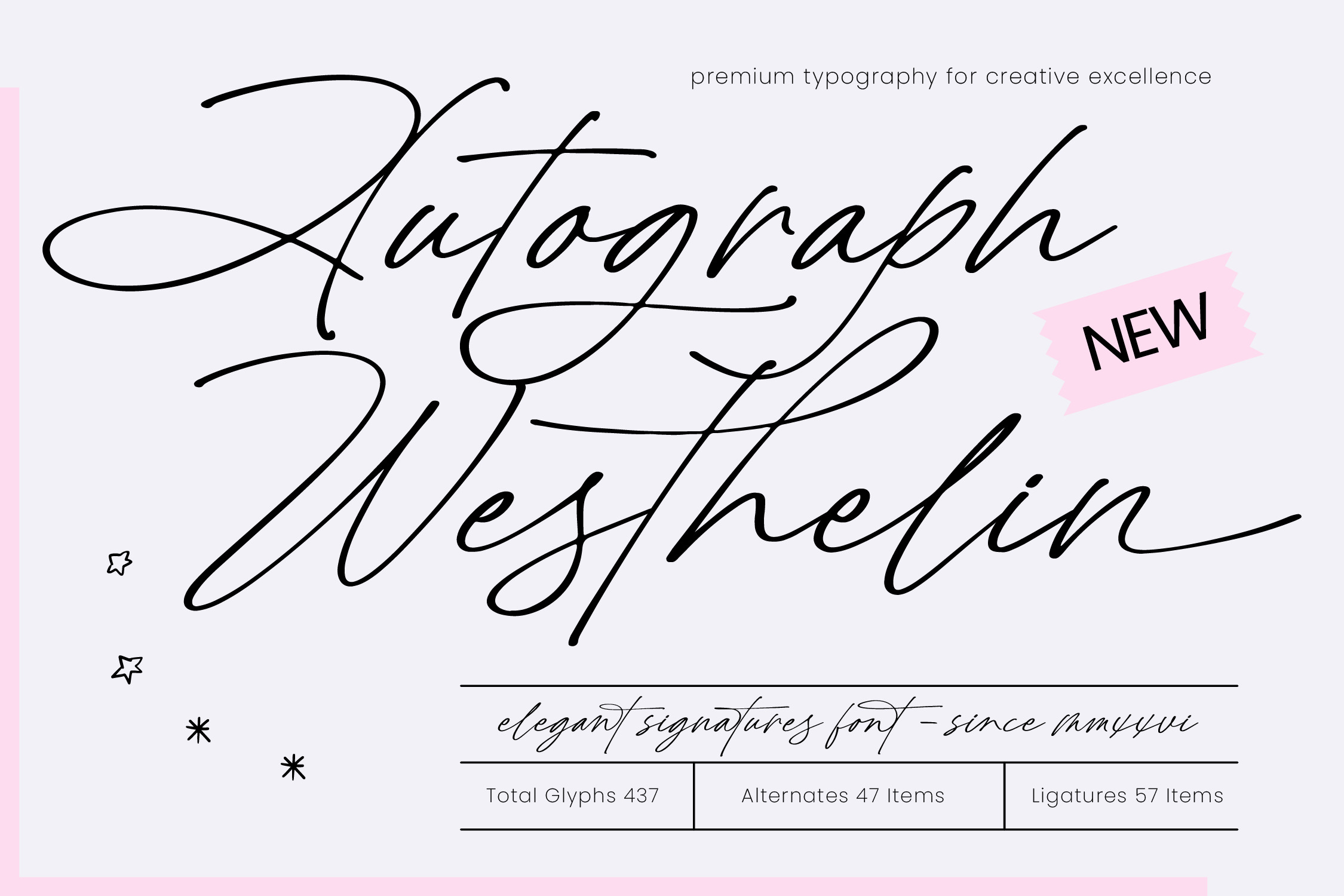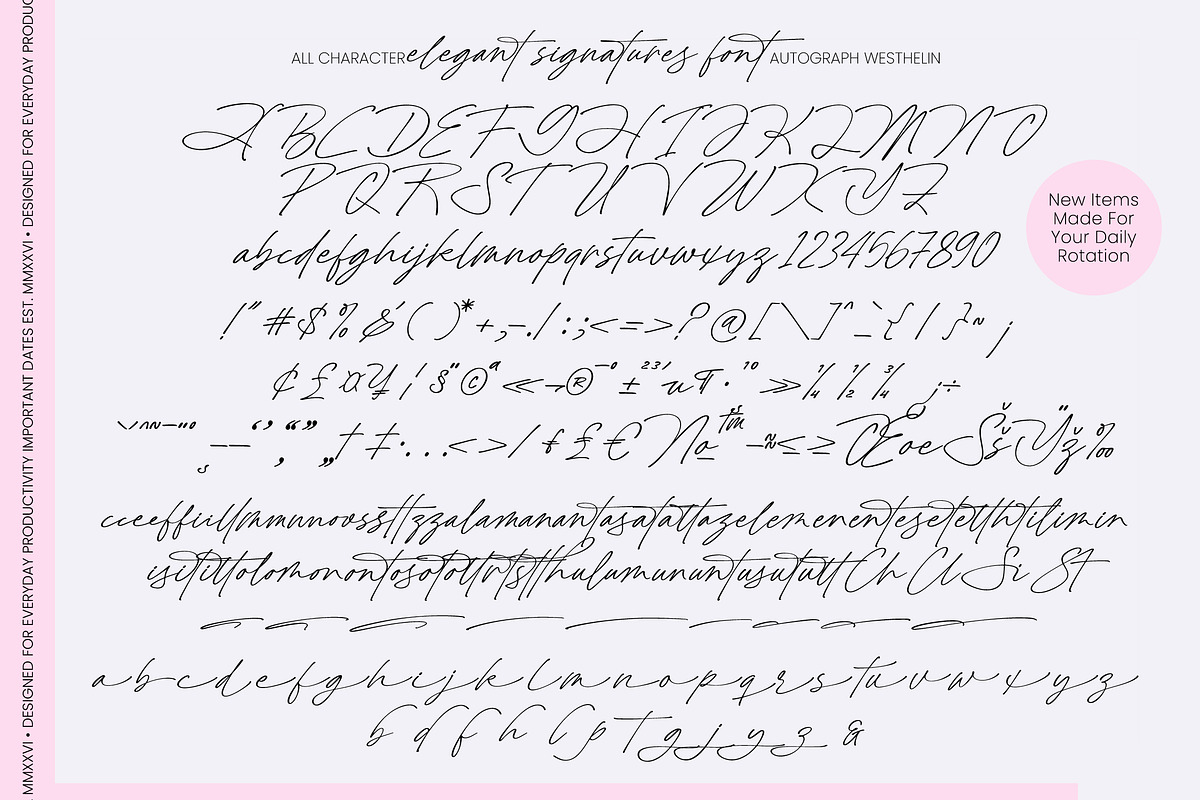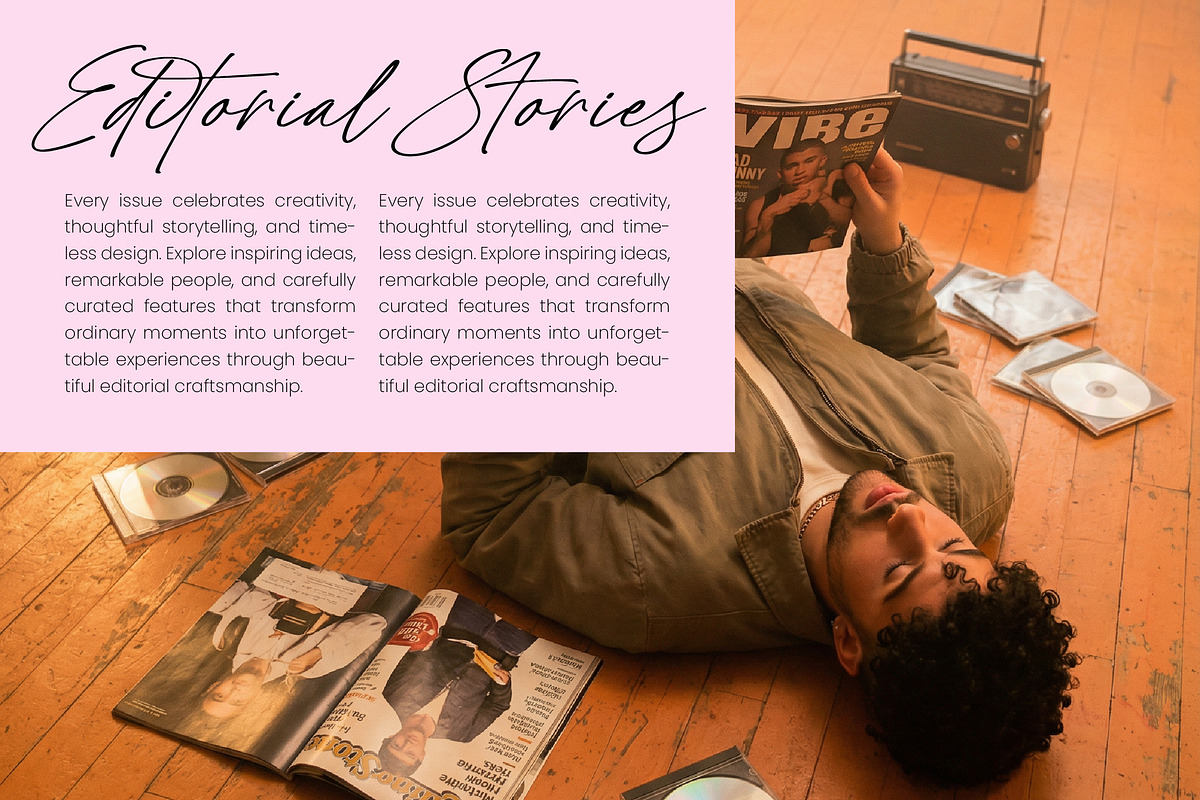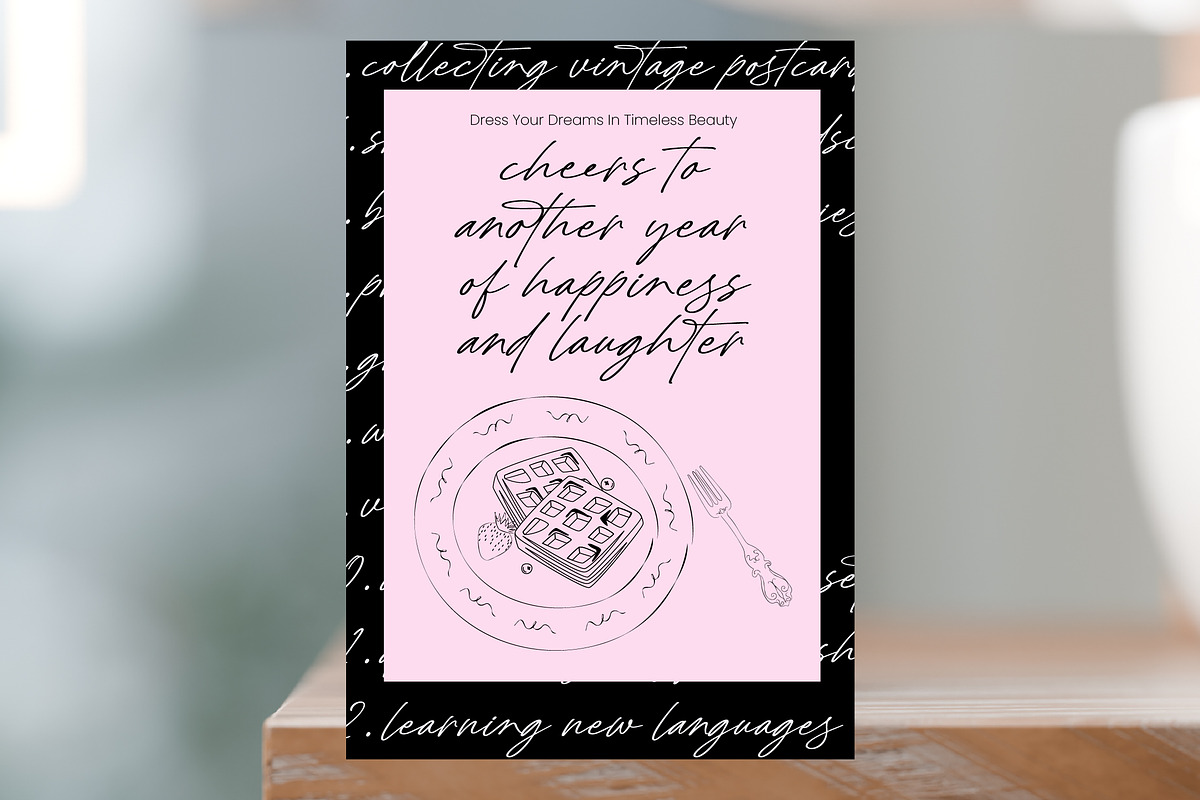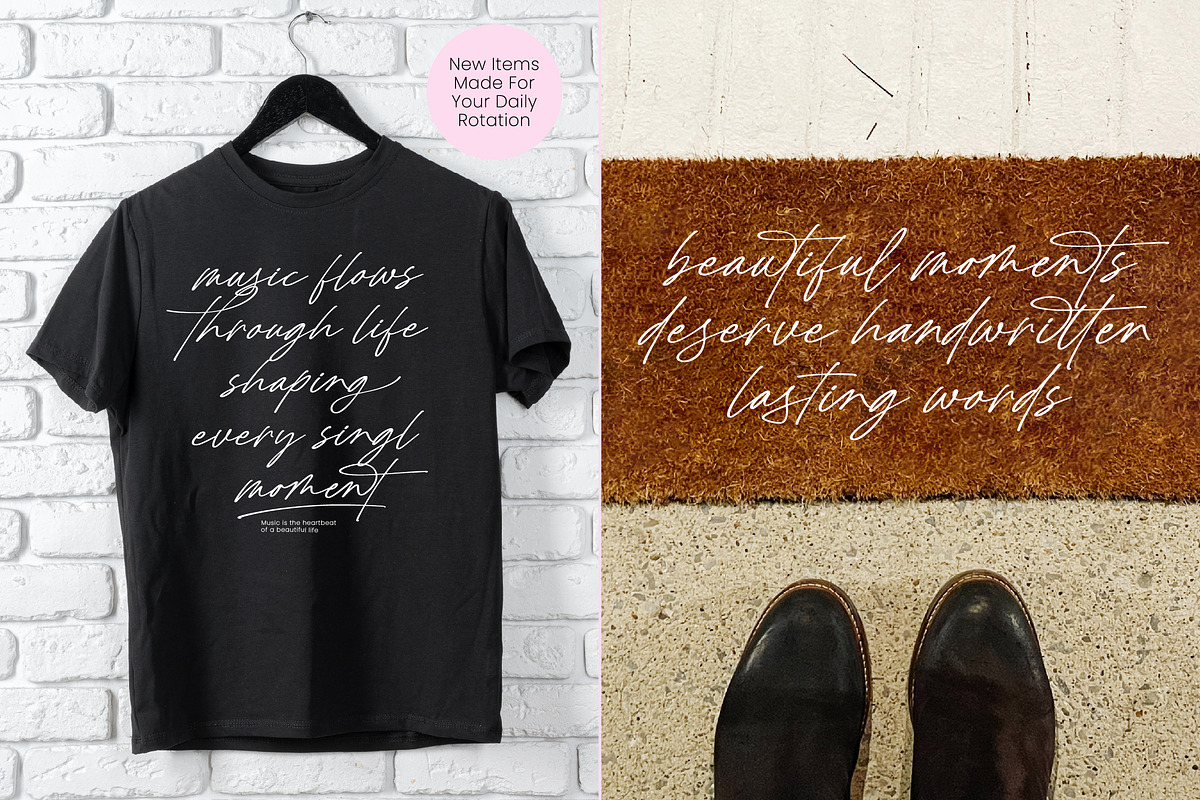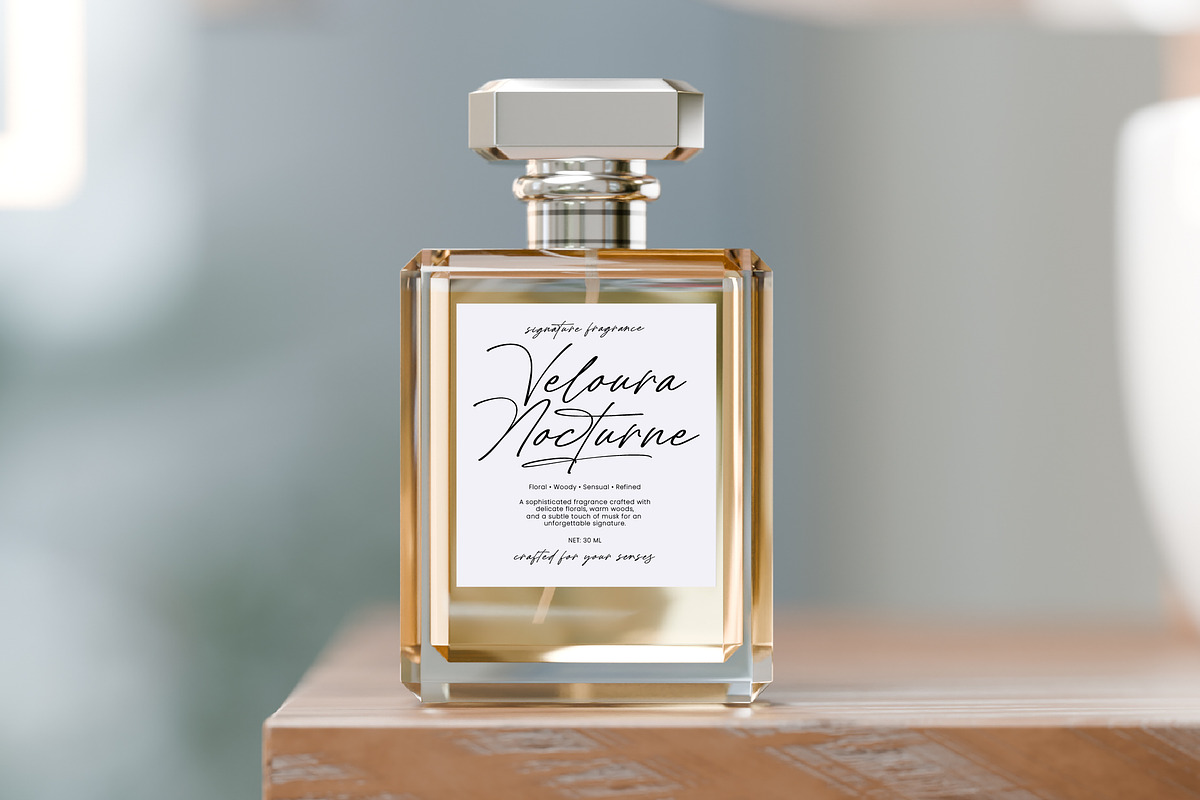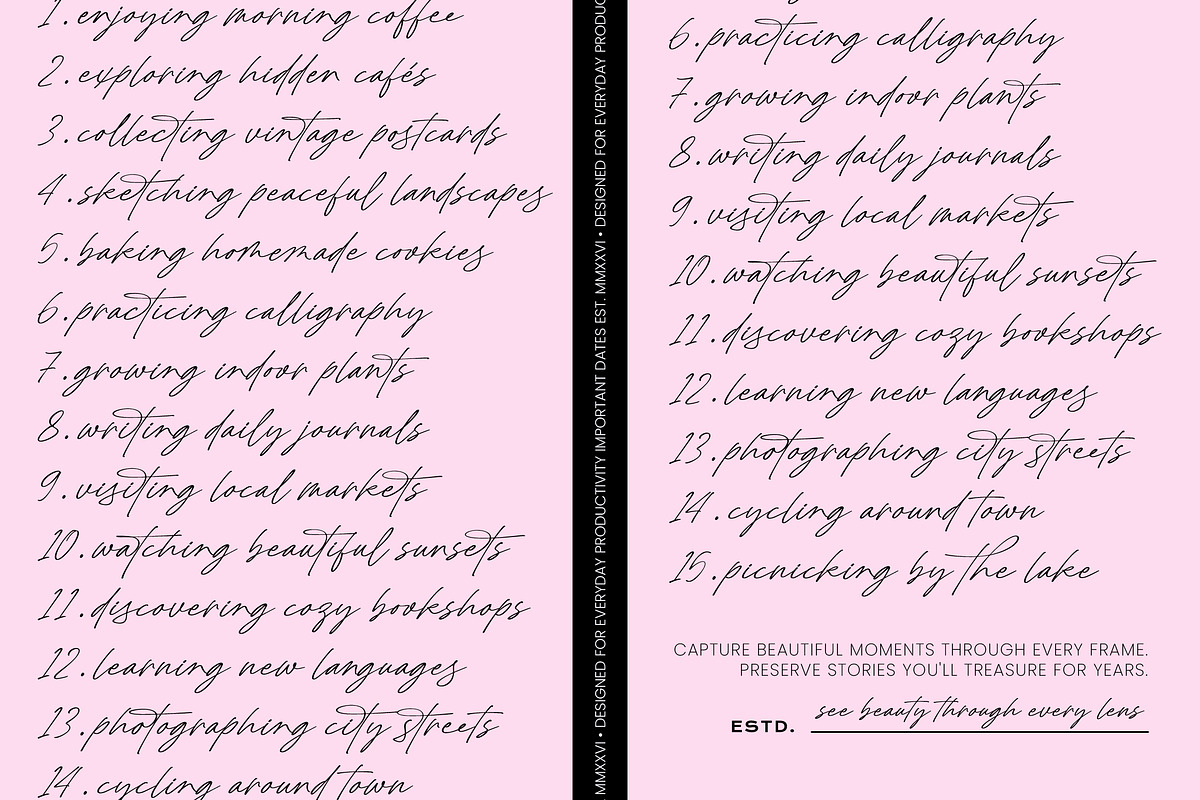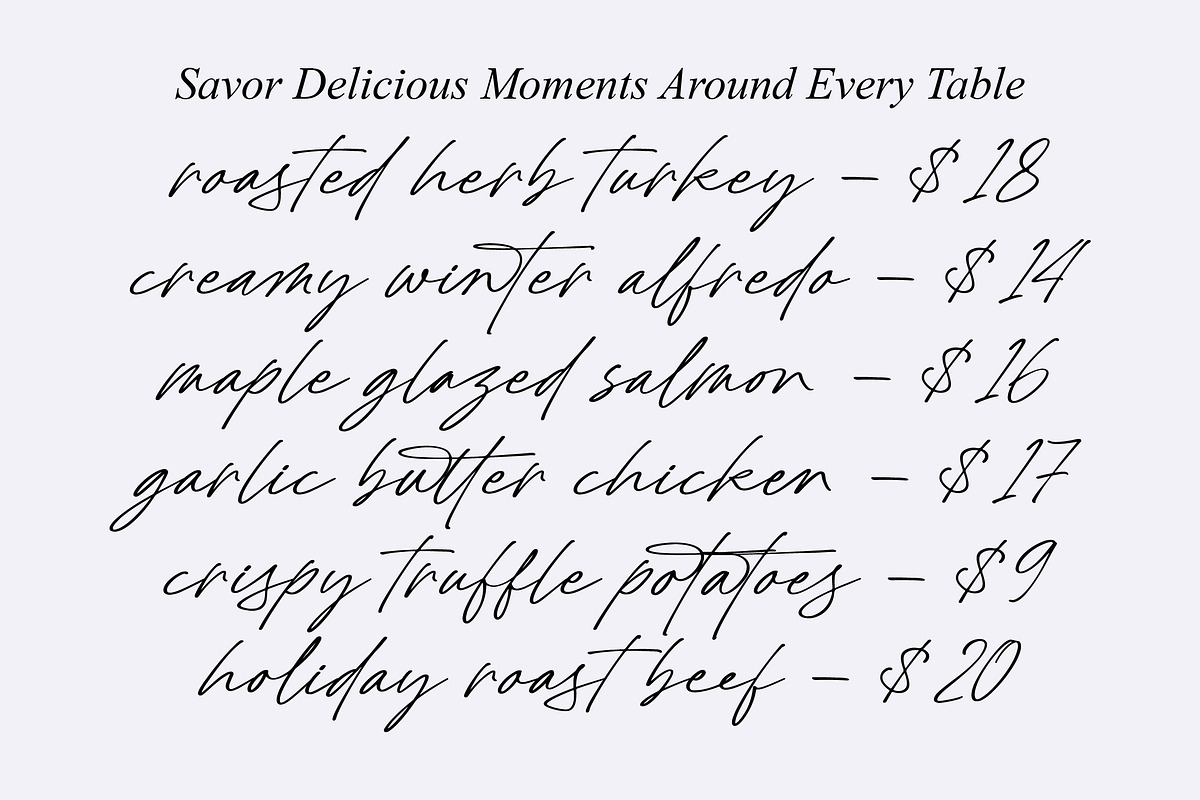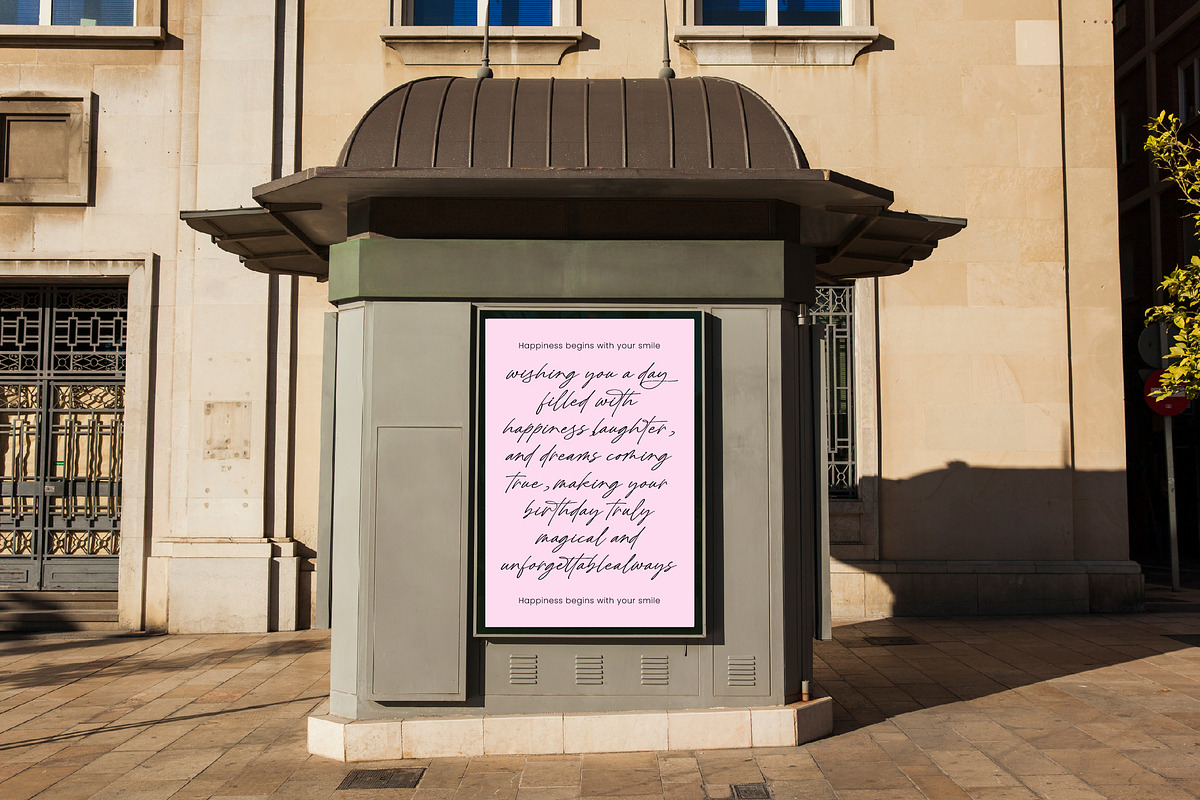
Autograph Westhelin Signature Font
Autograph Westhelin - Elegant Signature Font
Elevate your creative vision with a touch of timeless sophistication. The Autograph Westhelin - Elegant Signature Font is a premium typographic asset designed to infuse any project with organic elegance and a personalized feel. Its fluid, sweeping strokes mimic authentic handwriting, providing a high-end aesthetic that resonates with discerning audiences seeking exclusivity and style.
Engineered for high-impact visual identities, this typeface is the ultimate solution for professional designers. Autograph Westhelin - Elegant Signature Font is perfect for luxury branding, premium packaging, and high-fashion editorial design. Whether you are crafting bespoke wedding invitations, sophisticated logos, or chic social media content, its graceful silhouettes ensure your brand stands out with unrivaled prestige.
Global reach meets artistic versatility through a robust set of professional features. With its extensive multilingual support, Autograph Westhelin - Elegant Signature Font adapts seamlessly across global markets, making it incredibly versatile for international projects. Featuring a comprehensive glyph set of 437 items, it offers the creative flexibility needed to maintain a consistent brand voice worldwide.
Experience the unparalleled blend of handcrafted charm and commercial functionality. Investing in Autograph Westhelin - Elegant Signature Font means choosing a high-performance font that balances artistic flair with technical precision. This versatile signature script is an essential tool for any modern design kit, guaranteeing a unique, bespoke look that elevates your commercial output to new heights.